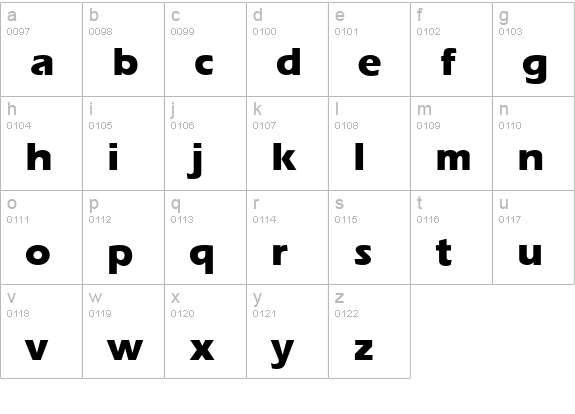
ErgoeExtrabold Regular Font Details
ErgoeExtrabold Regular is the standard, neutral variant in the ErgoeExtrabold typeface family \xE2\x80\x94 well suited to general body text, paragraphs, and standard typographic work.
ErgoeExtrabold Regular is a striking and bold typeface that exudes confidence and strength. Its sleek lines and modern aesthetic make it perfect for headlines, branding, and display purposes. The font's thick strokes and sharp angles command attention and leave a lasting impression on the viewer. Best of all, ErgoeExtrabold Regular is available for free download at FontsMarket.com. This means you can easily incorporate this powerful font into your design projects without any cost. Whether you're working on a poster, logo, or website, ErgoeExtrabold Regular is sure to make a statement and elevate your design to the next level. Download it now and unleash the full potential of your creativity!